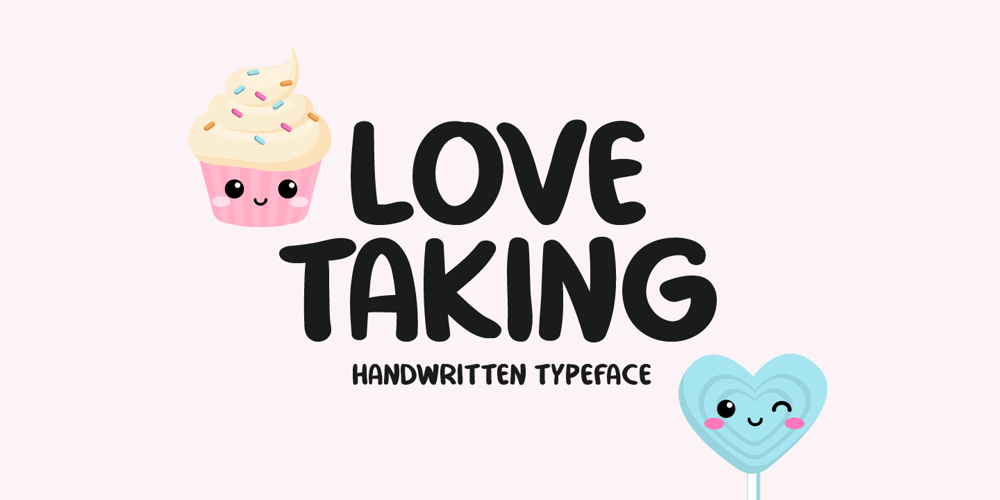
Love Taking Font Family was designed by Md Shohail Bhuian and published by Seemly Fonts. Love Taking contains 1 styles and family package options. Love Taking a joyful and casual handwritten font. Its natural and unique style makes it incredibly fitting to a large pool of designs. The only limit is your imagination!It’s a Caps only Font.